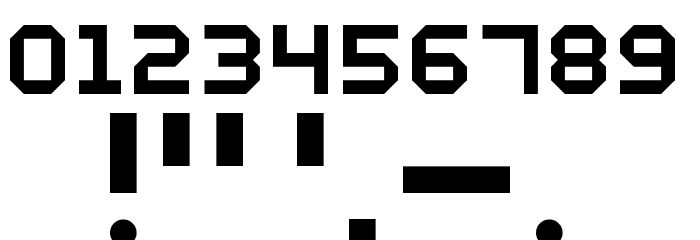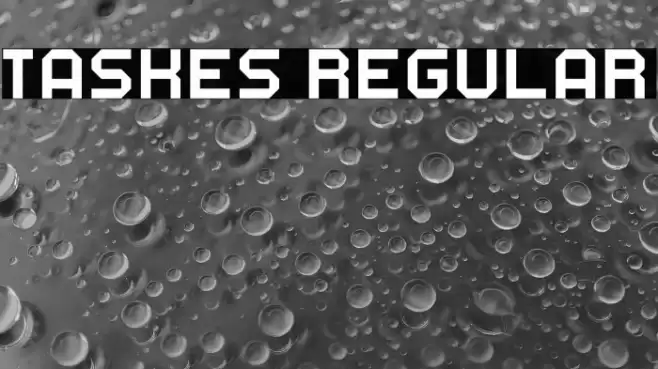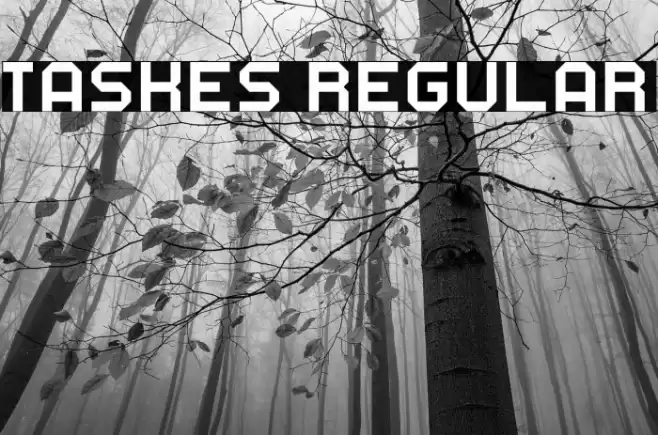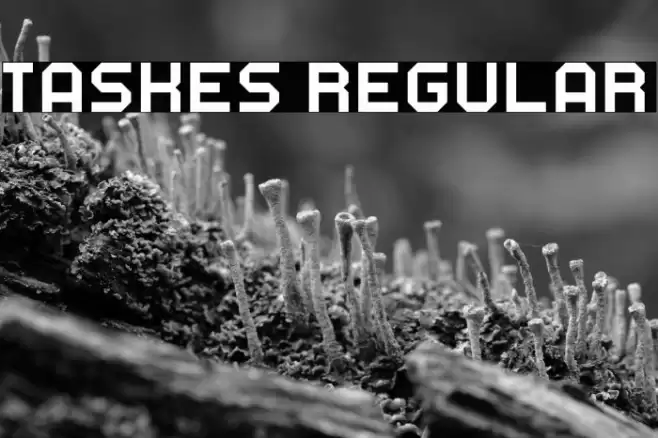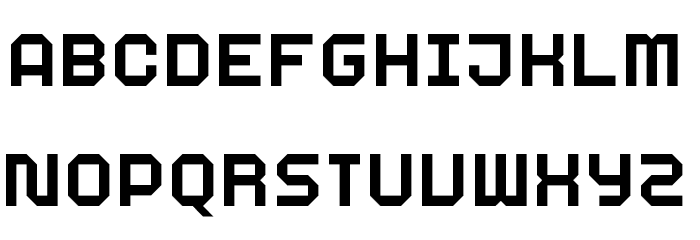
Taskes Regular Font
| Caso d'uso | Logos, Headlines, Digital interfaces |
| Progetti proposti | Ideal for technology branding, digital interfaces, video game design, and futuristic posters. |